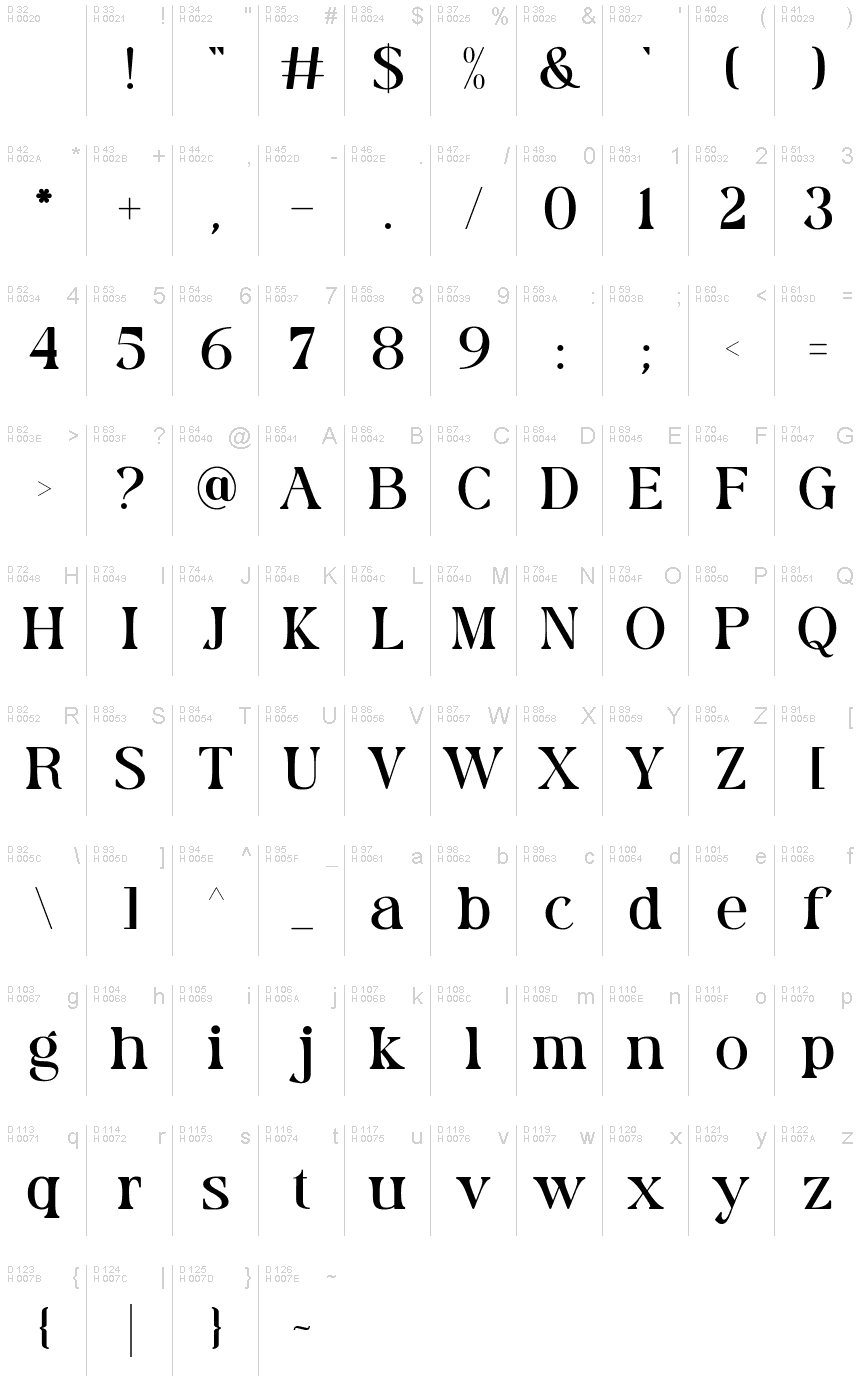
Rolaxs
Rolaxs Font, created by ToniStudio, is a bold serif font with a modern twist. Its thicker lines and blunt ends give it a unique retro feel.
This versatile font is perfect for creating eye-catching logos, impactful quotes, and engaging blog posts. With its vintage charm, Rolaxs Font adds a touch of elegance to branding projects and magazine imagery.
It also lends itself beautifully to wedding invitations, giving them a timeless appeal. Let Rolaxs Font elevate your design projects with its bold yet sophisticated style.